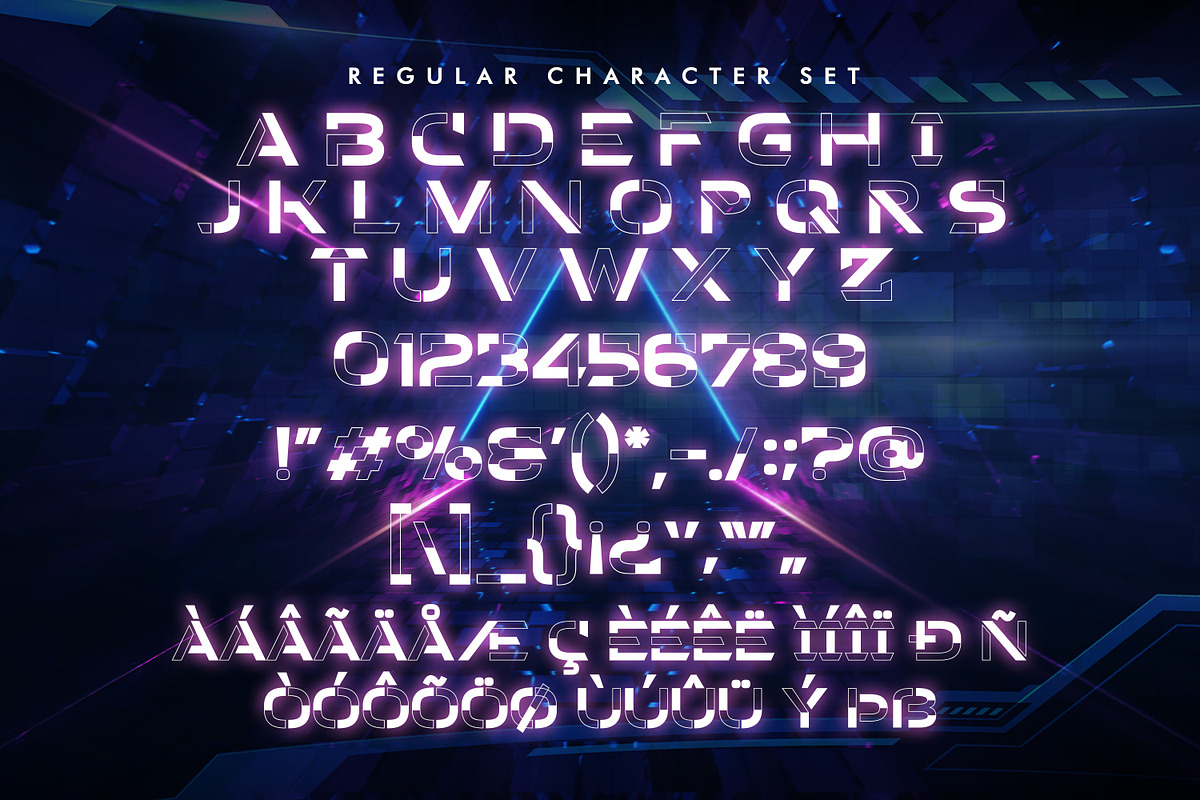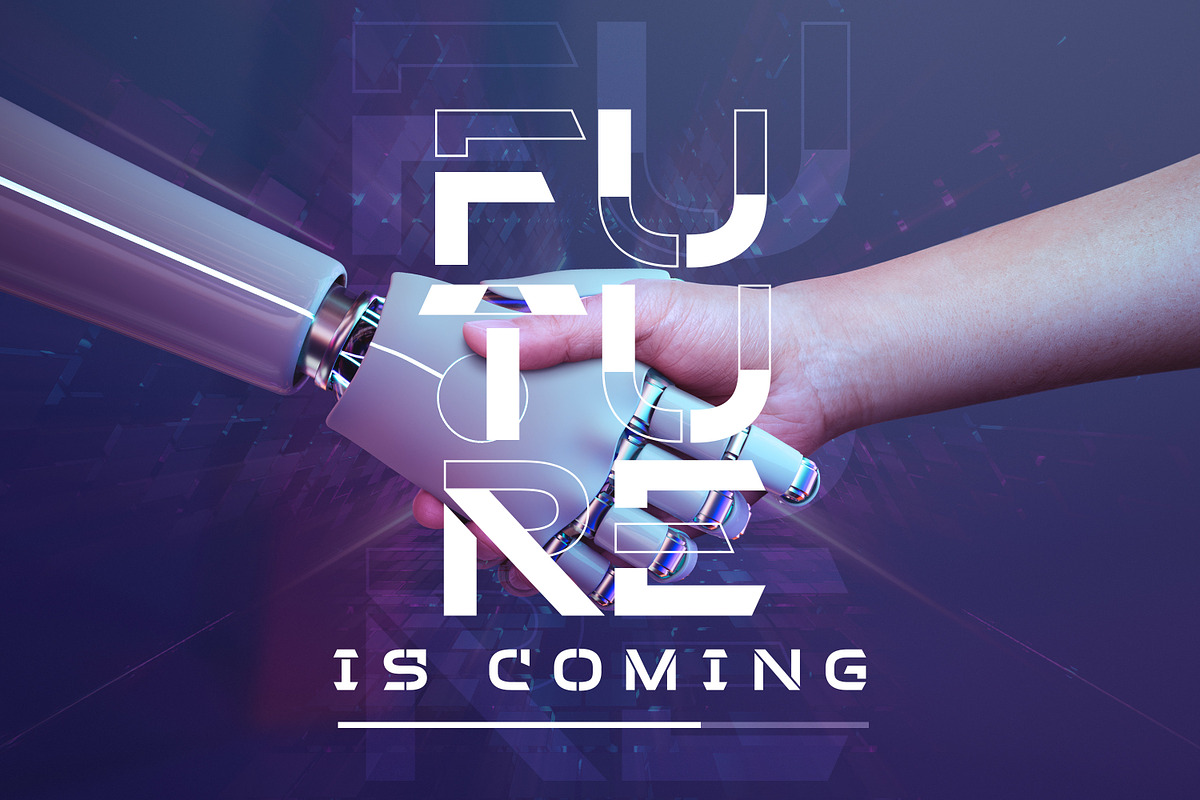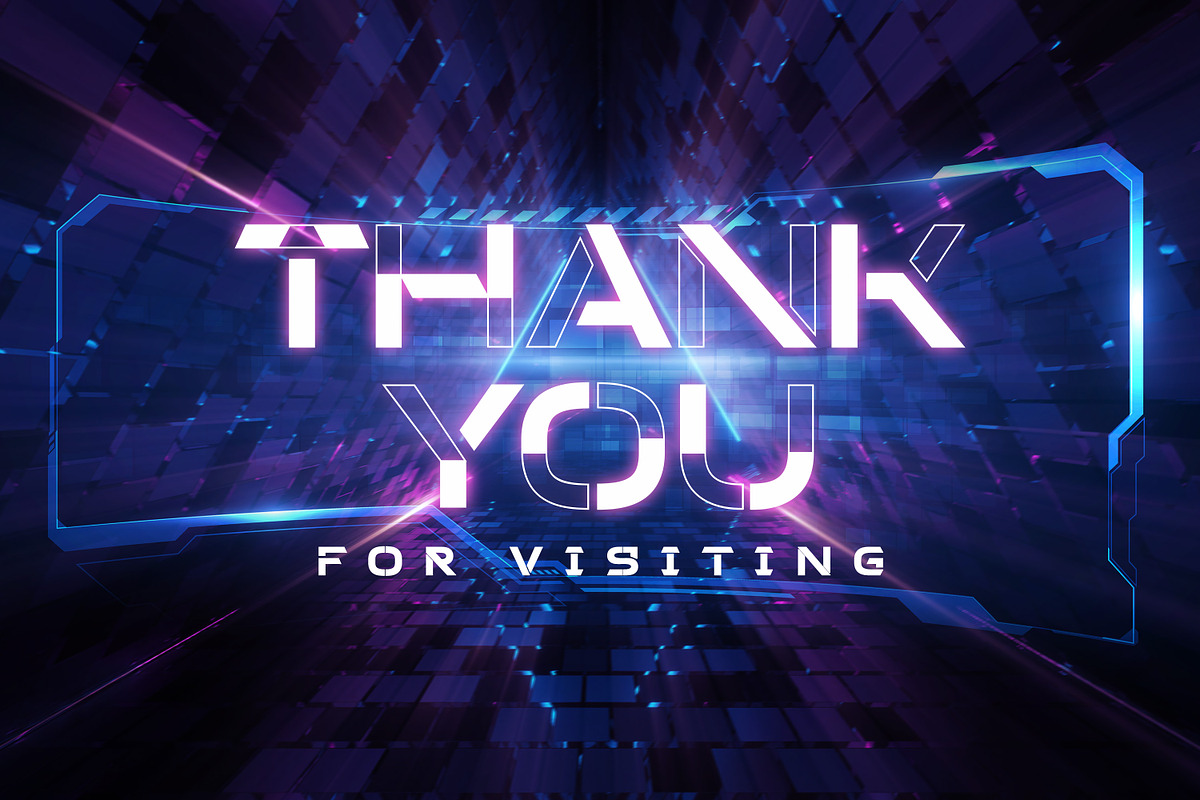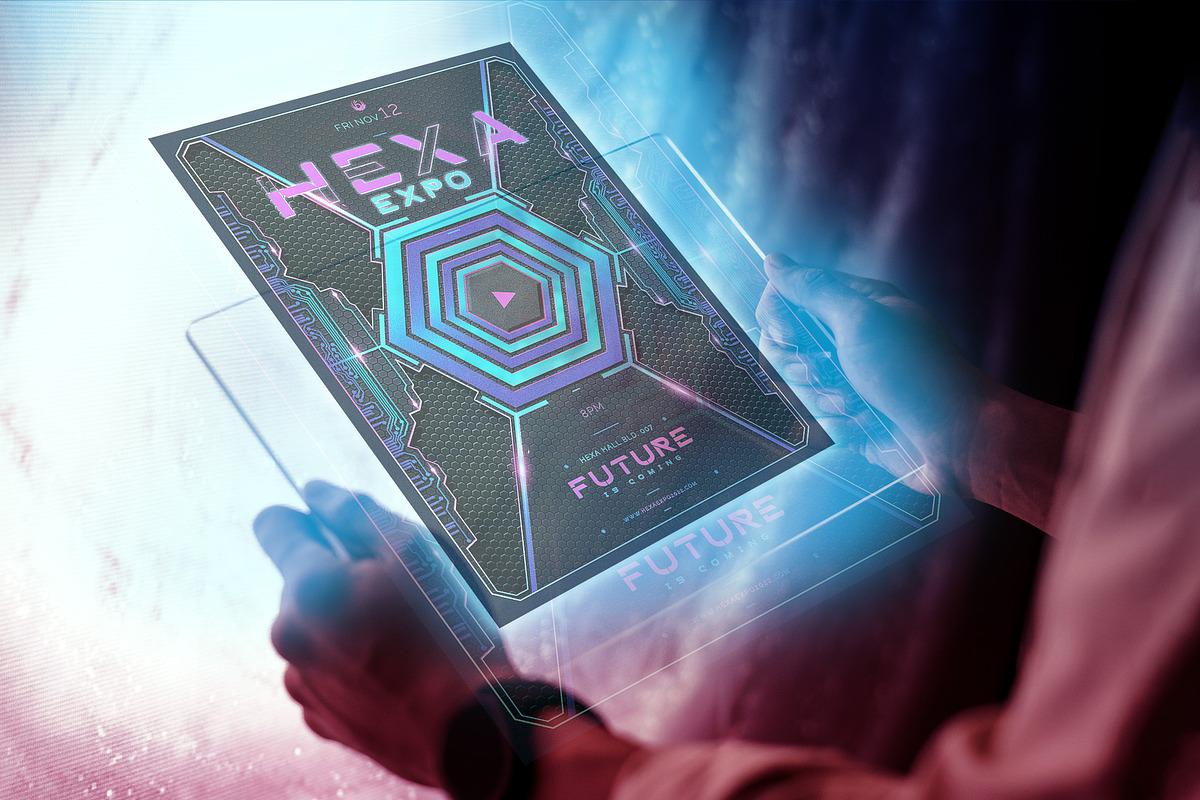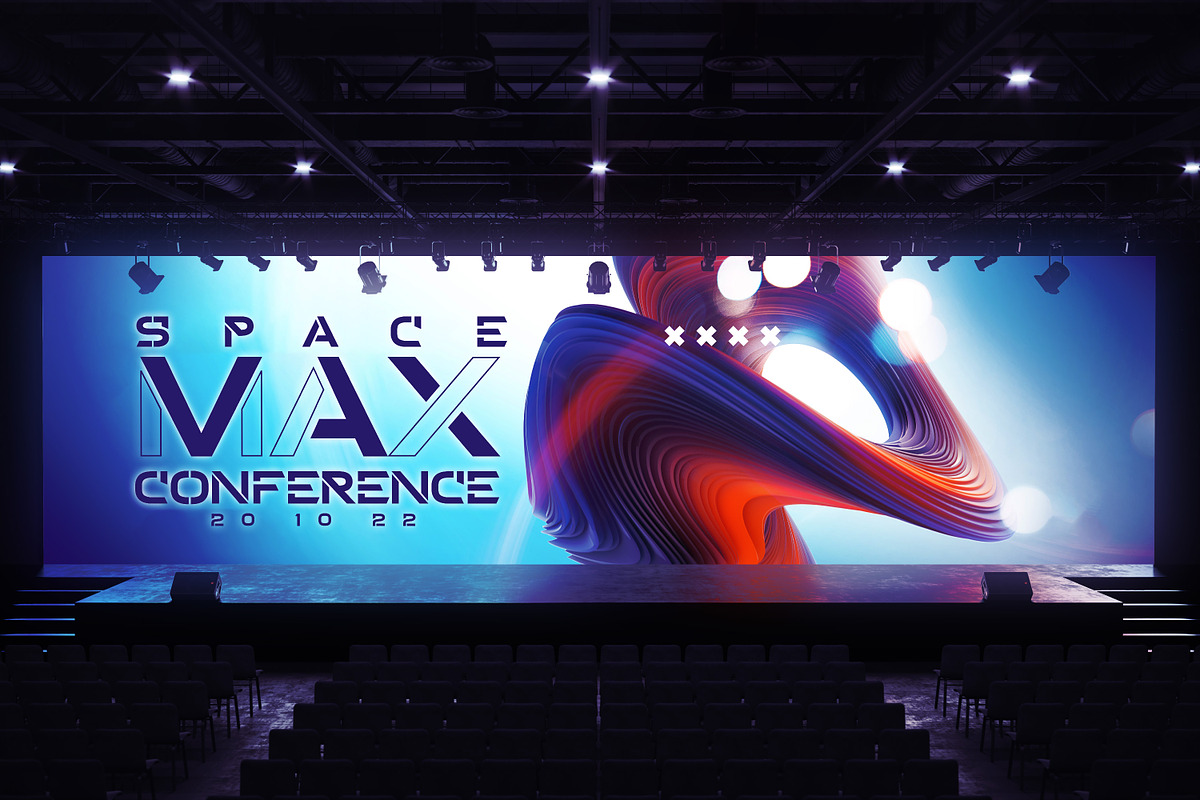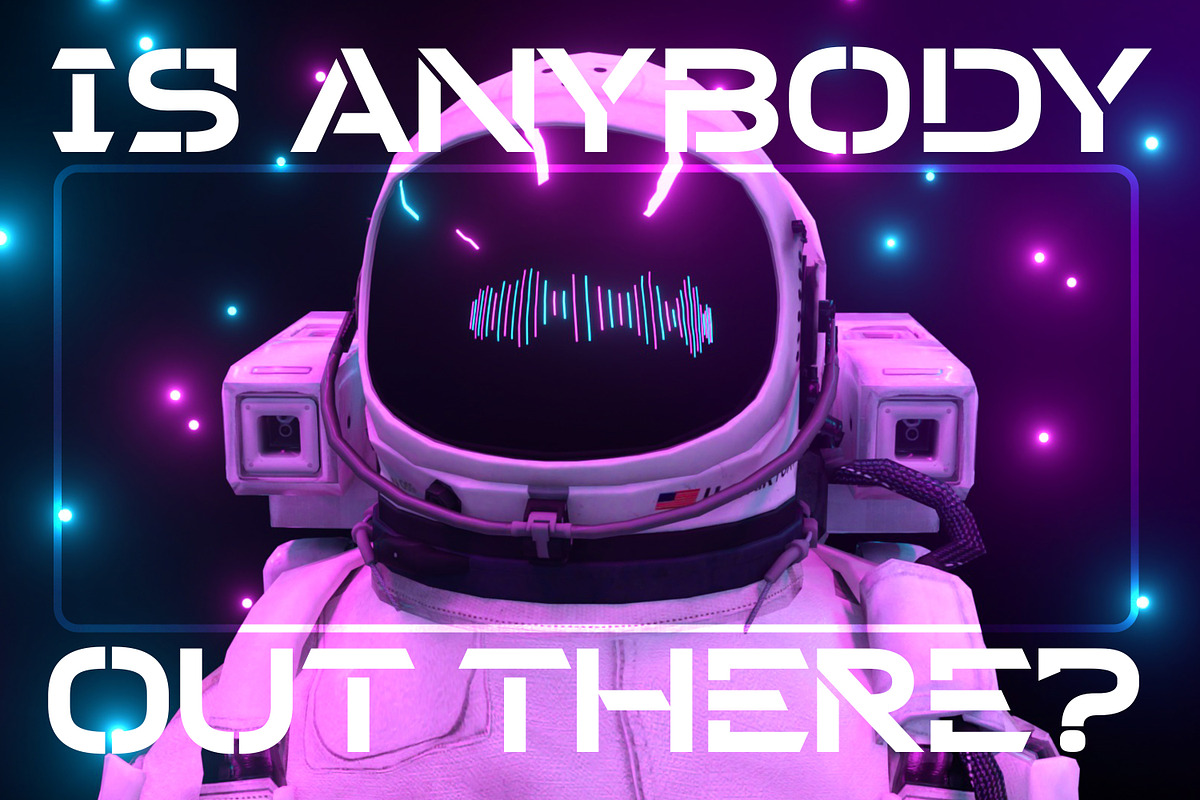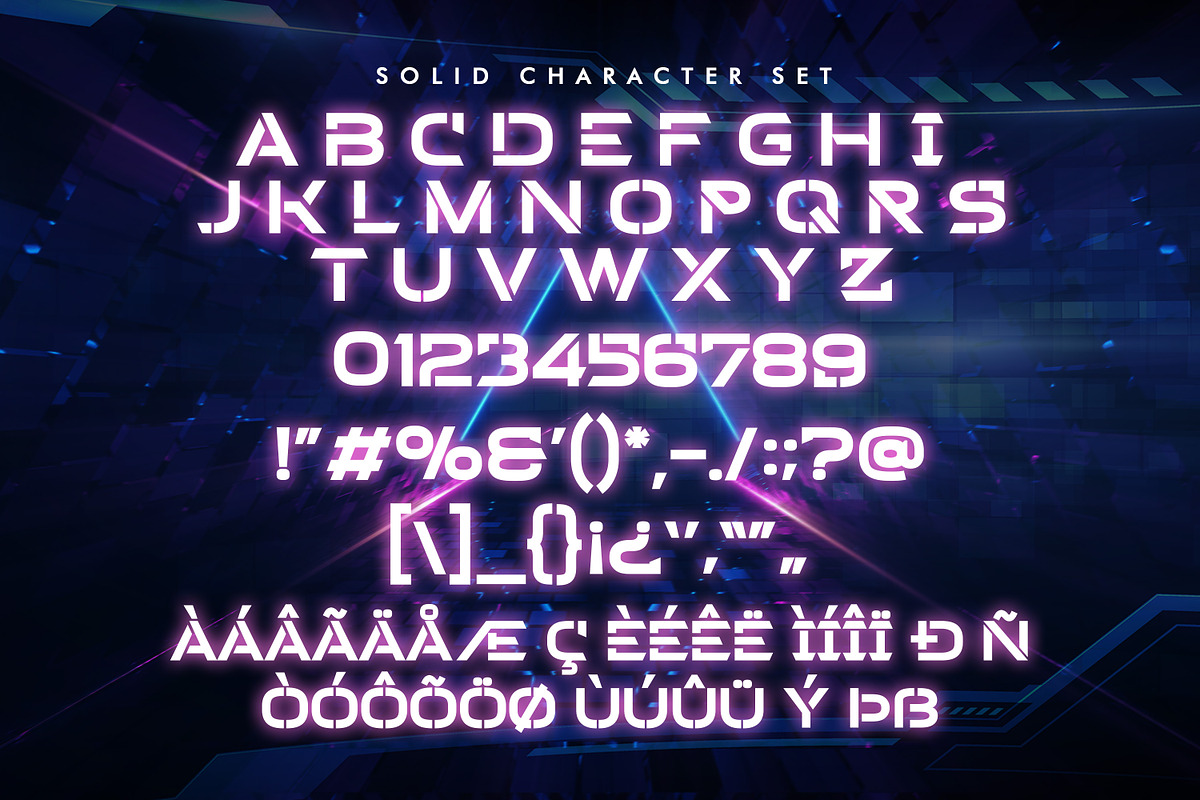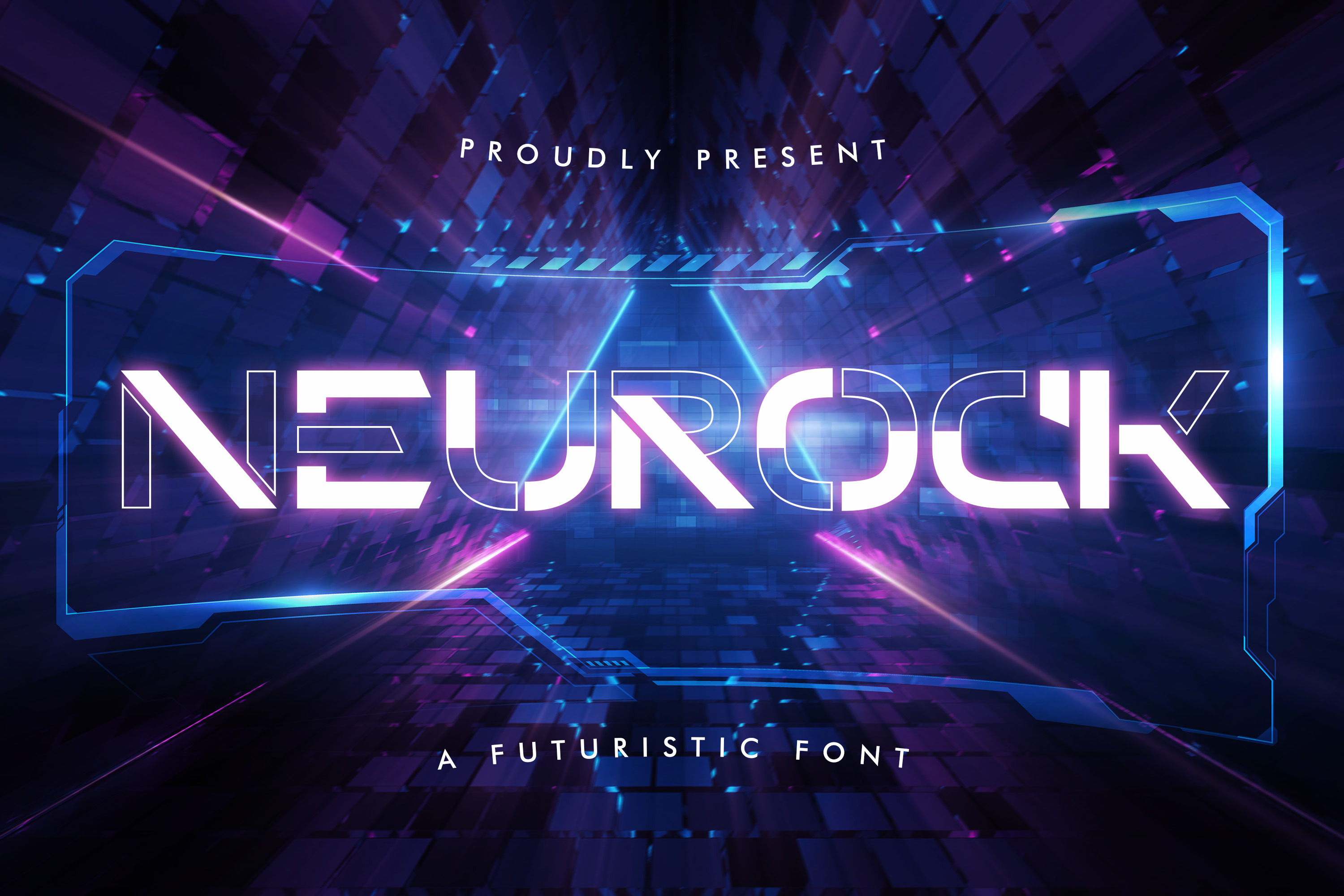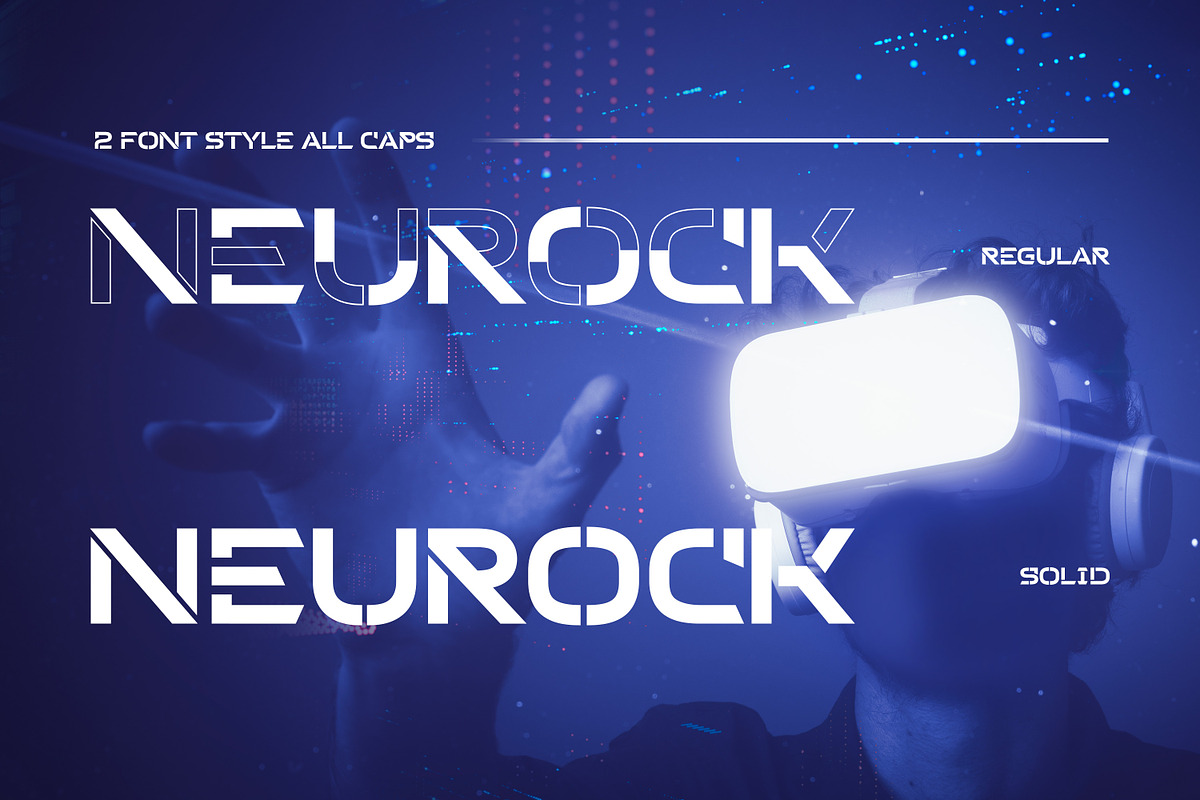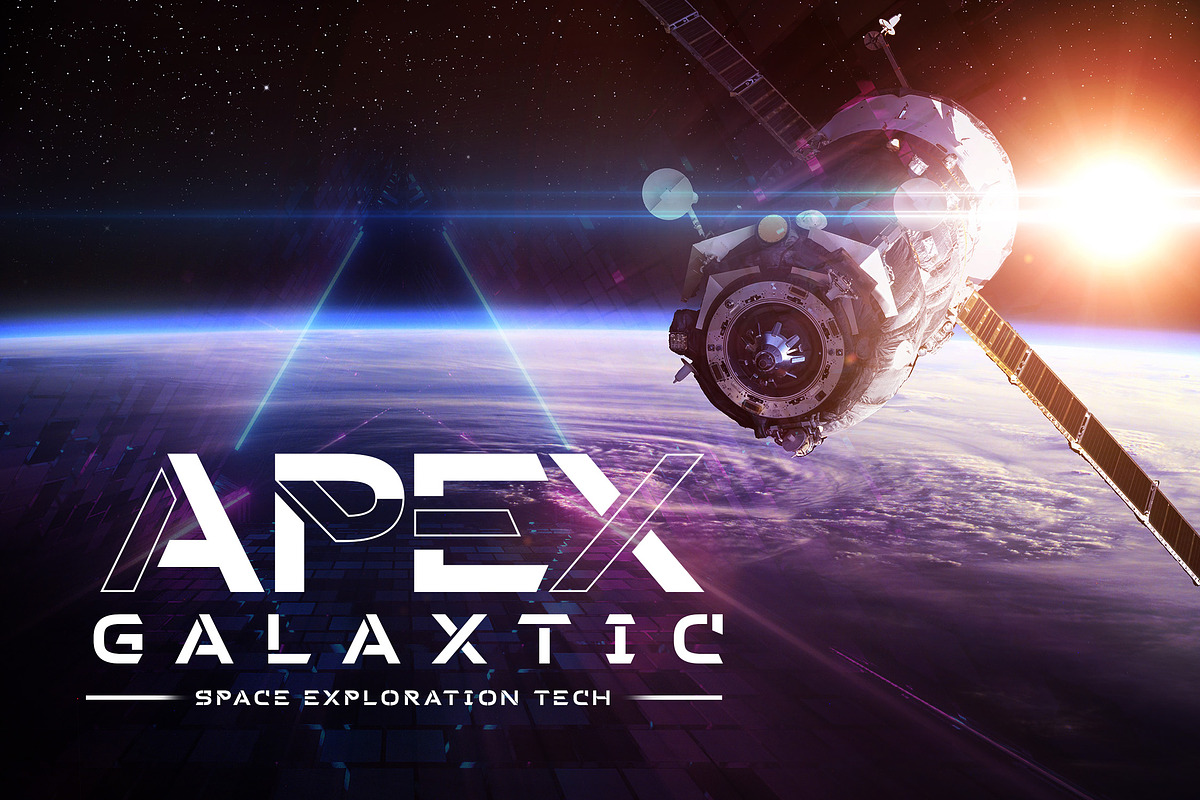
Neurock - A Futuristic Font
Hello Everyone, Introduce our new collection, Neurock - Futuristic Font Sans With 2 Style, Inspired from famous logos of Futuristic Style and brands that have very strong characteristics, very suitable for posters, packaging, branding, logotype and more.
Neurock font with strong and challenging nuances. very suitable for the title, typography, Poster, magazines, brochures, packaging,Websites and much more for your design needs, making your designs more modern and professional